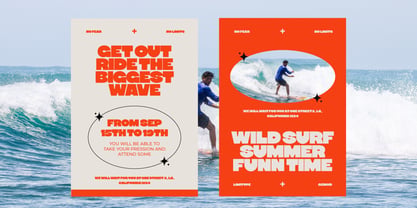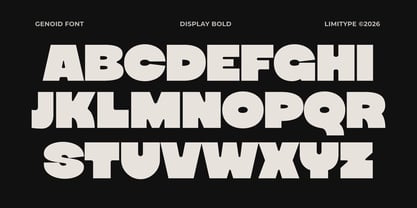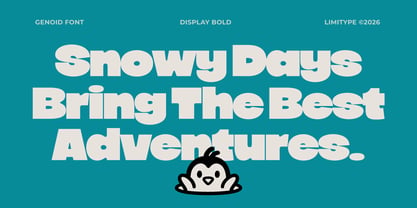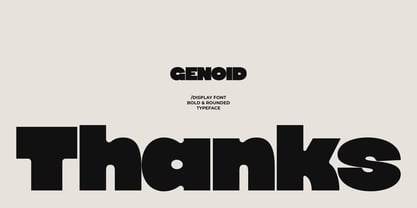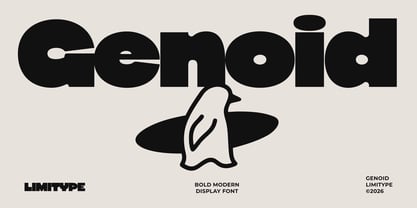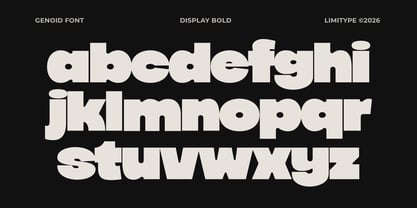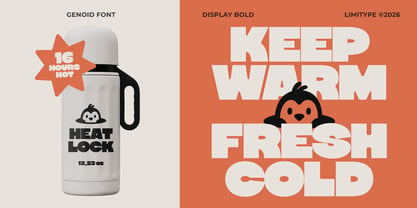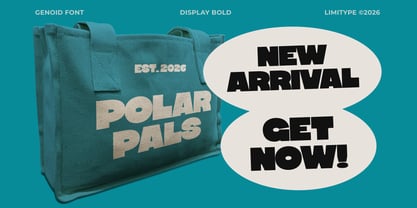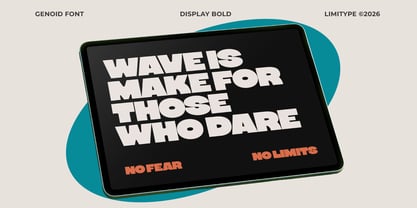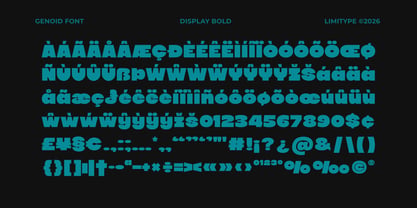
Genoid
von limitype
Die Schriftfamilie Genoid wurde von Muhammad Muammar, Furqan Sudirman entworfen und von limitype veröffentlicht. Genoid enthält 1 Stile. Mehr über diese Familie
Genoid is a bold and expressive display font featuring chunky, rounded letterforms with a playful and distinctive character. Its heavy shapes, smooth curves, and unique cut in details on certain parts of the letters create a strong visual personality with a subtle retro inspired feel. Designed to deliver a strong visual impact, Genoid is perfect for headlines, posters, logos, branding, packaging, editorial designs, and various eye catching display applications.
Designer: Muhammad Muammar, Furqan Sudirman
Foundry: limitype